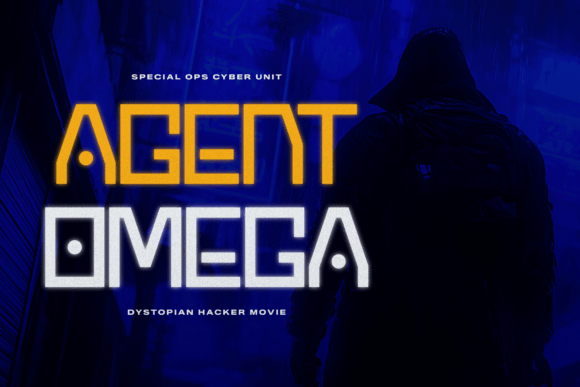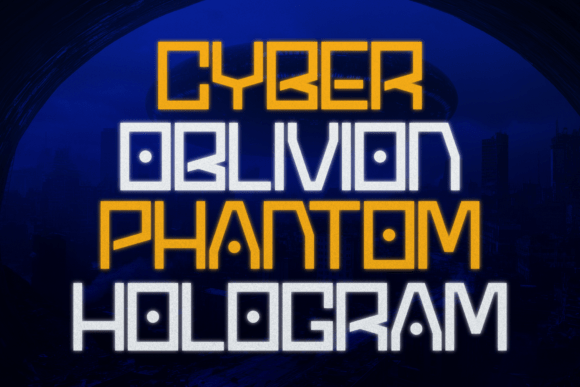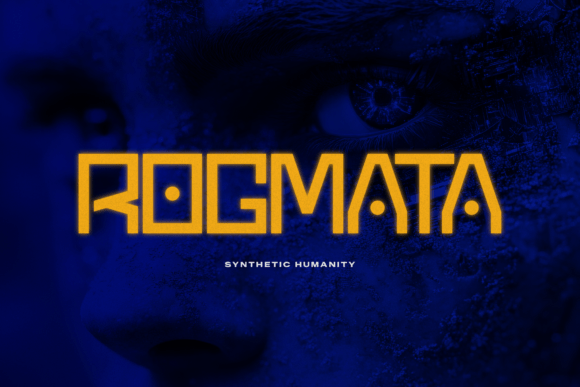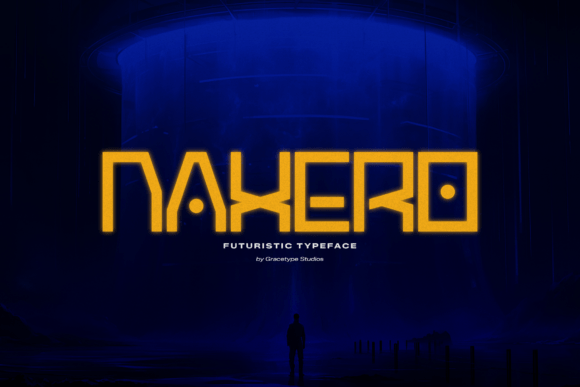
Introduction to Naxero Font
Transport your audience to the next frontier with Naxero, a bold futuristic typeface meticulously.
This font features a heavy, geometric construction with sharp angular cuts and unique stencil-like apertures that radiate high-tech authority Its monolithic silhouette is enhanced by custom decorative elements—like the precision dot accents and stylized “X” crossbars—making it an extraordinary choice for sci-fi cinematic titles, competitive gaming branding, aerospace engineering logos, and cyberpunk-inspired editorial layouts.